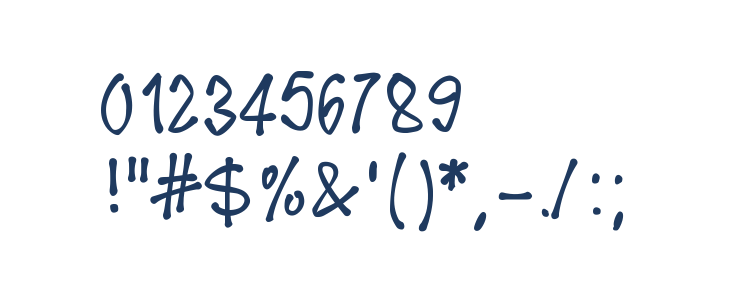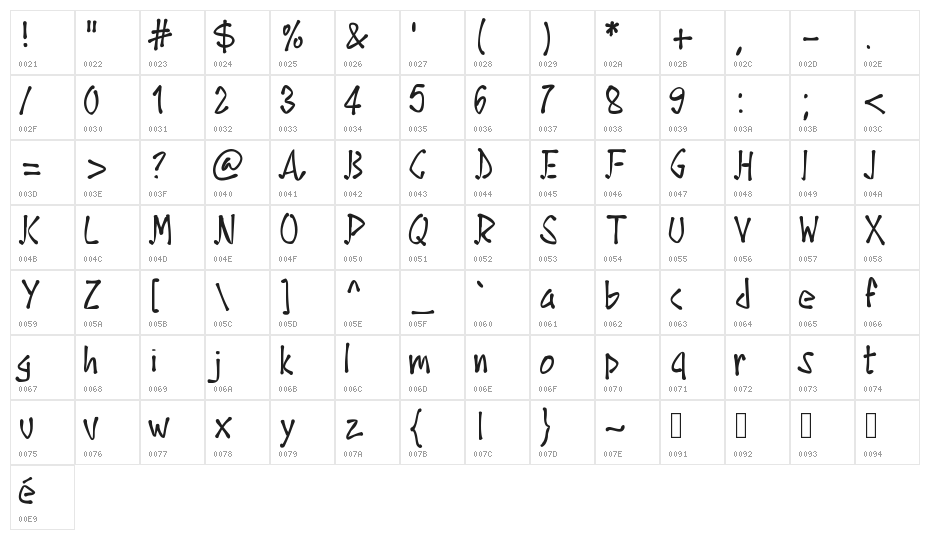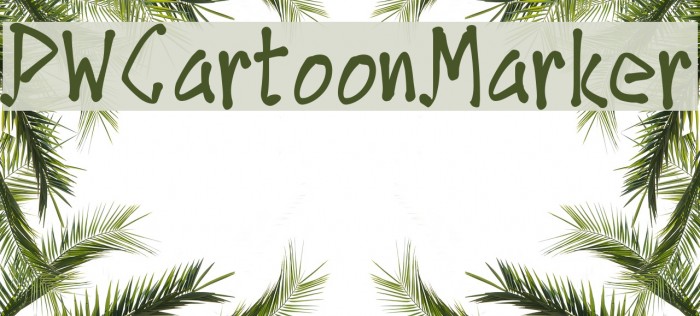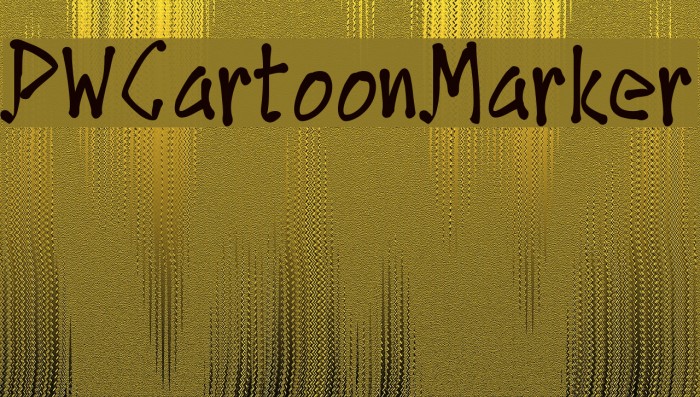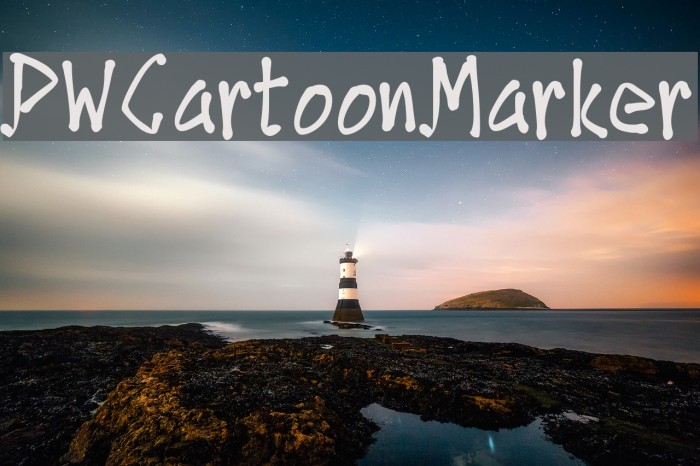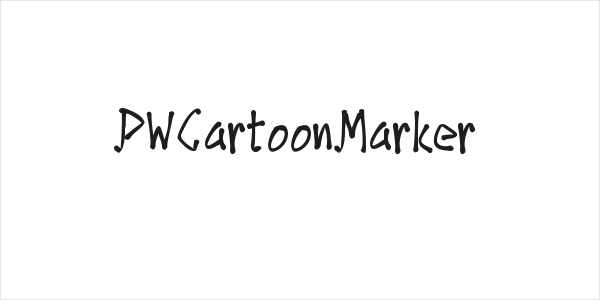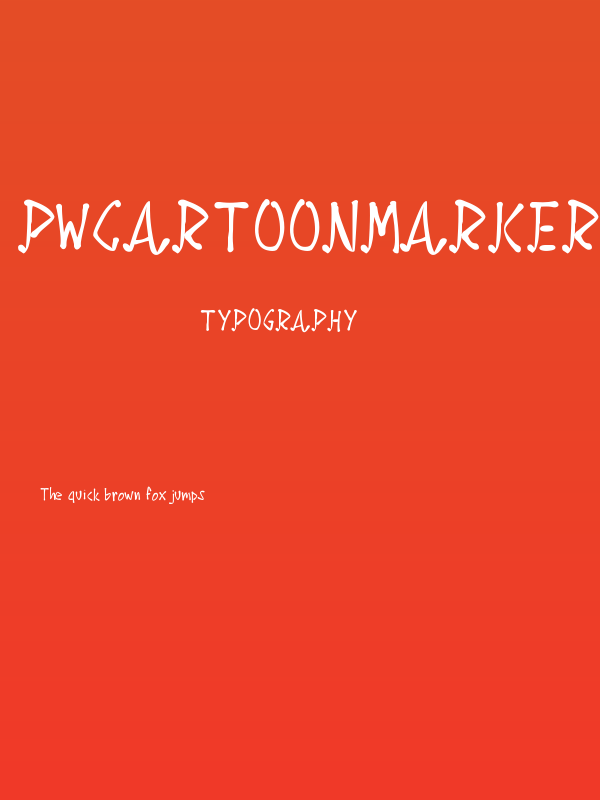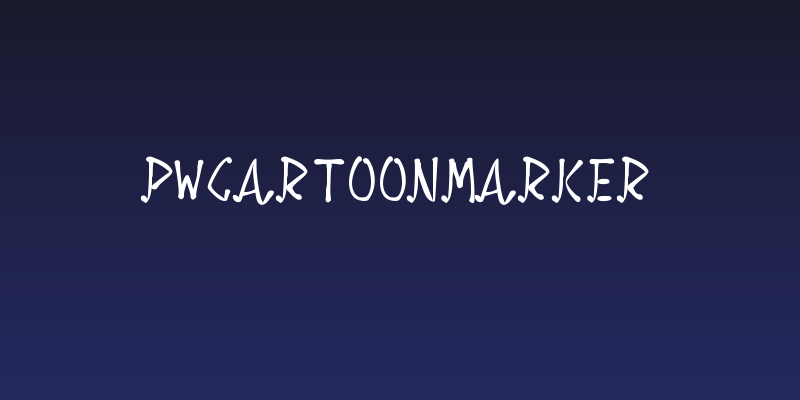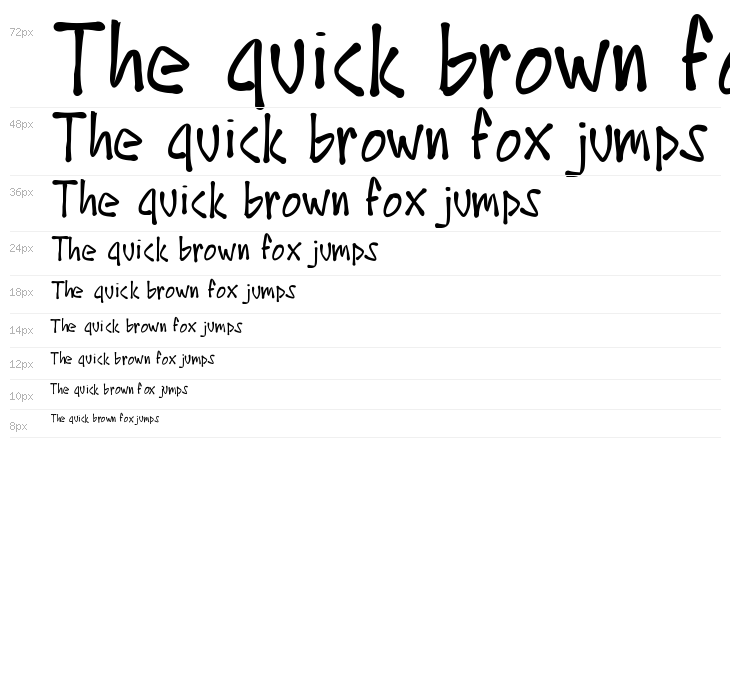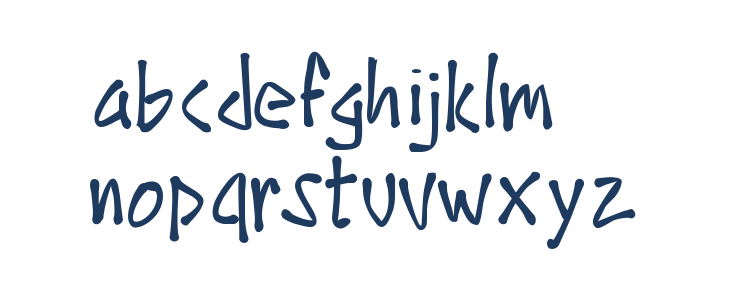
PWCartoonMarker Font
PWCartoonMarker Description
This playful and whimsical font exudes a hand-drawn, cartoonish style that is both fun and approachable. The characters are slightly irregular, giving them a lively and dynamic appearance. The strokes are bold and consistent, with rounded edges that soften the overall look. This font captures a sense of spontaneity and creativity, making it ideal for projects that require a touch of humor or a casual, friendly vibe. The uppercase and lowercase letters maintain a cohesive style, while the numerals and special characters complement the overall aesthetic. Its unique personality makes it stand out, perfect for engaging audiences in a lighthearted manner.
| Proposed Projects | Ideal for children's books, comic strips, playful branding, and casual invitations. |